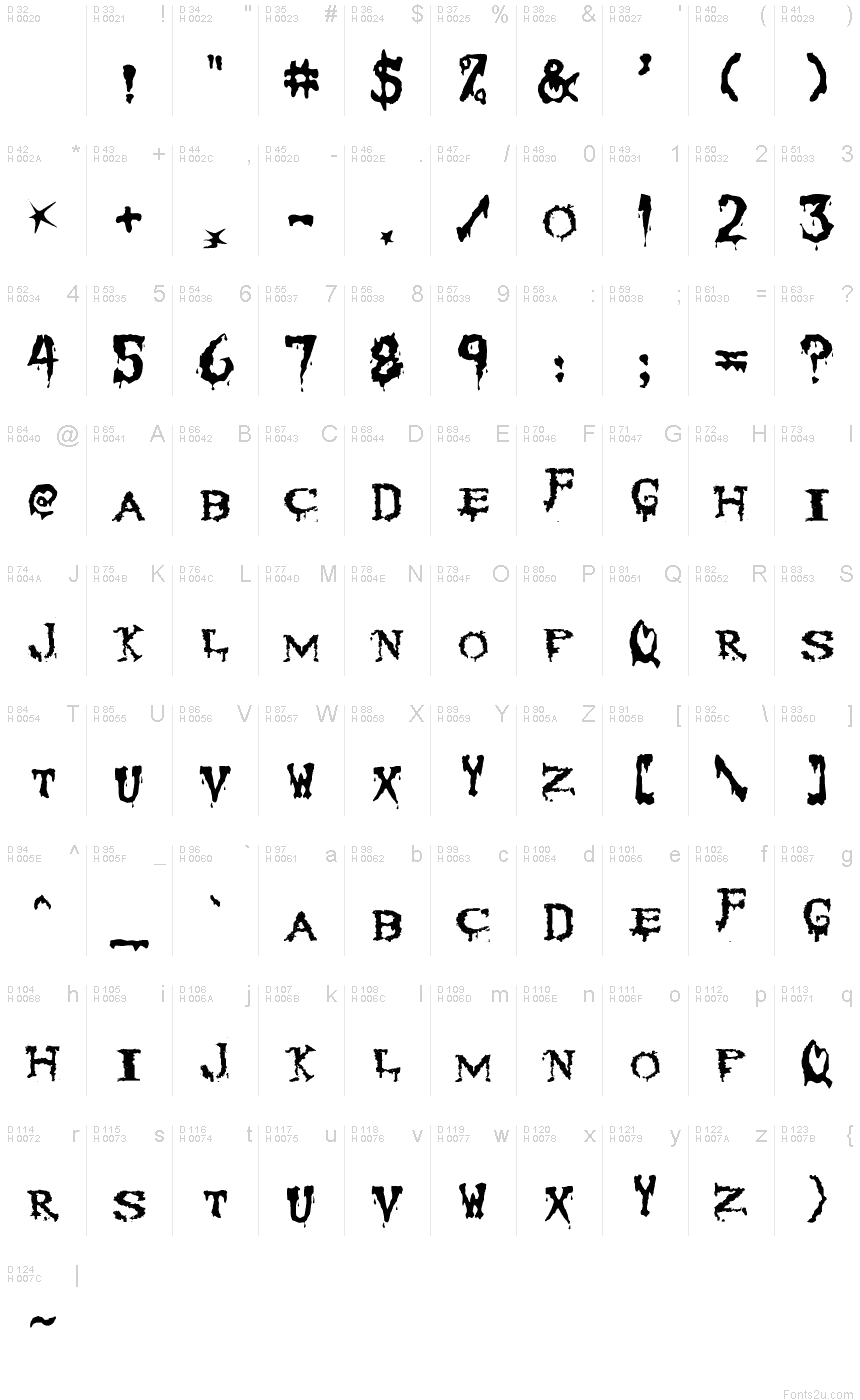
Corpse
Corpse font is a free distorted display typeface that looks like it’s been dragged out of a damp grave. Each letter bleeds with inky drips, rough craters, and rotting edges that feel almost sticky on the page, giving titles a raw, splattered horror energy. The spacing stays surprisingly readable, so you can push the chaos big and bold without losing the message.
Using Corpse, you can lock in gruesome atmospheres for horror movie posters, haunted house signage, Halloween flyers, metal band logos, creepy game titles, and dark book covers. This free font shines when set large and tight, then paired with a plain, compact sans serif for supporting text to keep the gore contained.